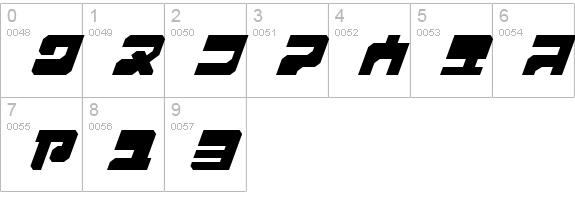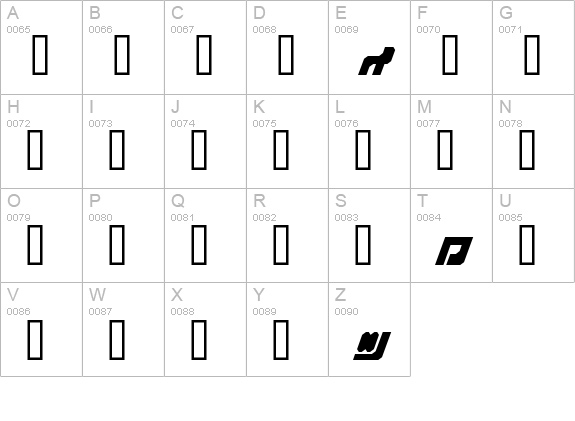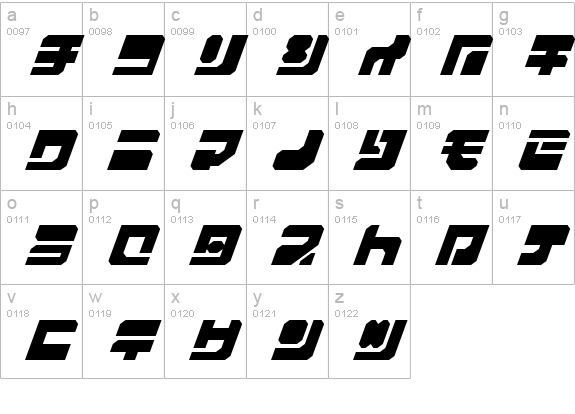
I2MechaPlaï¿¿e Font Details
Introducing the captivating and innovative I2MechaPlaï¿¿e font, a true masterpiece that will elevate your designs to the next level. This extraordinary font combines the futuristic essence of technology with a touch of mechanical precision, creating a visual experience that is both powerful and mesmerizing. With its sleek and sharp lines, I2MechaPlaï¿¿e font captures the essence of mechanical engineering, effortlessly blending form and function. Each character is meticulously crafted, emanating a sense of precision and sophistication that is sure to captivate the attention of any viewer. Whether you are designing a cutting-edge logo, a sleek website, or a futuristic poster, the I2MechaPlaï¿¿e font will undoubtedly make a lasting impression. Its versatility allows it to seamlessly adapt to various design projects, adding a touch of modernity and sophistication to any composition. One of the most remarkable aspects of I2MechaPlaï¿¿e font is that it is completely free. Yes, you read that right! This exceptional font is freely available to download at FontsMarket.com. Now, you can effortlessly enhance your designs without any added cost. Don't miss this incredible opportunity to harness the power of I2MechaPlaï¿¿e font and take your designs to new heights. Download it today from FontsMarket.com and unlock a world of unlimited creative possibilities. Get ready to impress and inspire with the captivating allure of I2MechaPlaï¿¿e font.